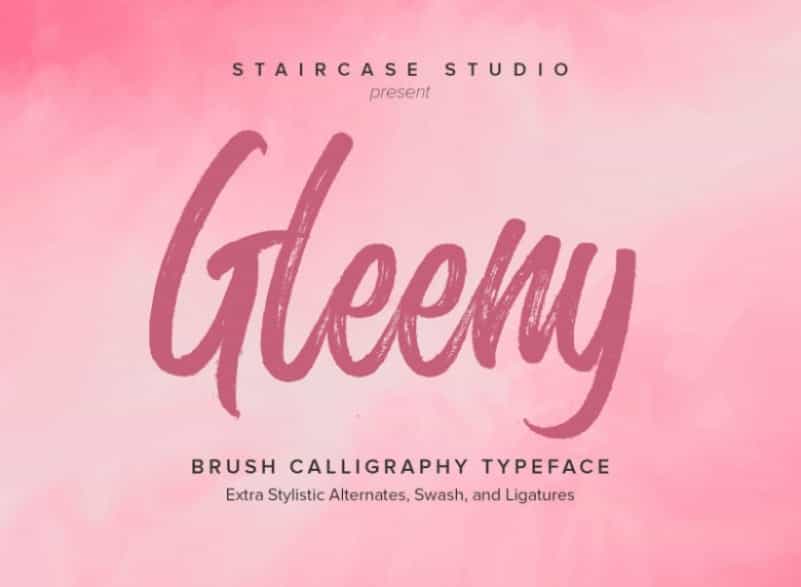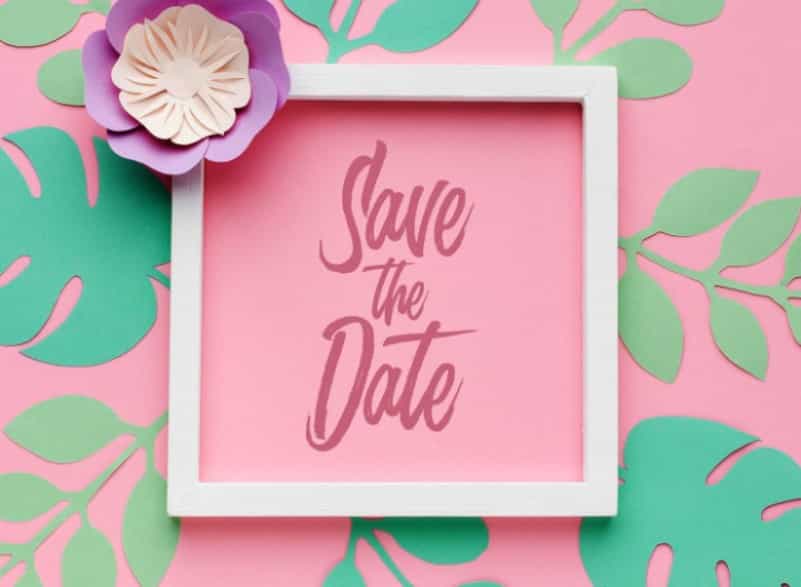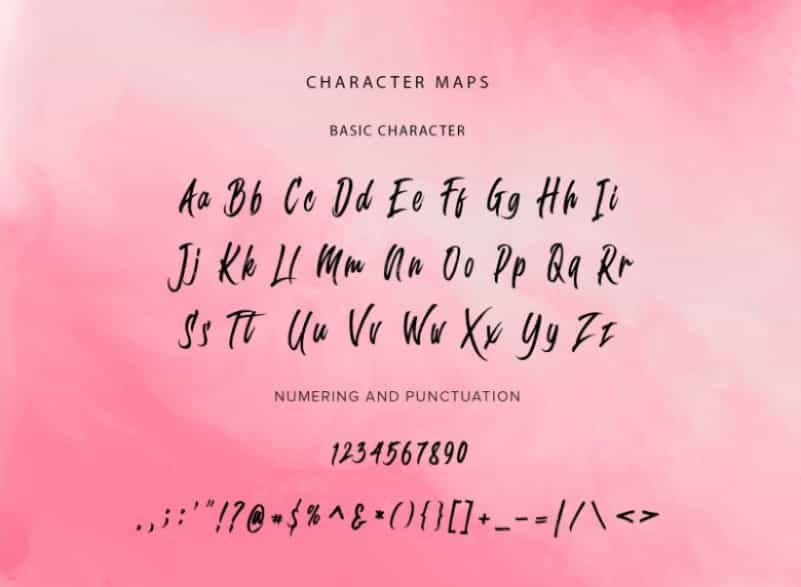
Glenny is a brush script typeface that is textured with rough edges and a myriad of ligatures, giving the font a real handwritten brush feel. Glenny font is distinctive and contemporary brush design is the ideal typeface to add a handwritten impression to menus, social media posts weddings, invitations, packaging, or any other project you might imagine!